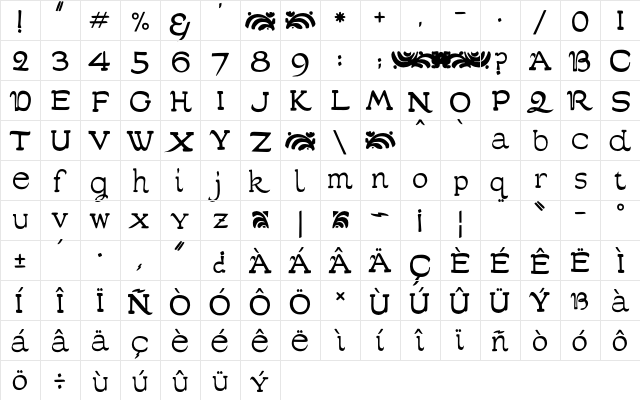
JMH Poudre Regular
Design Context for JMH Poudre Typeface
JMH Poudre is a composed and adaptable typeface that performs quietly and consistently across a wide range of design contexts.